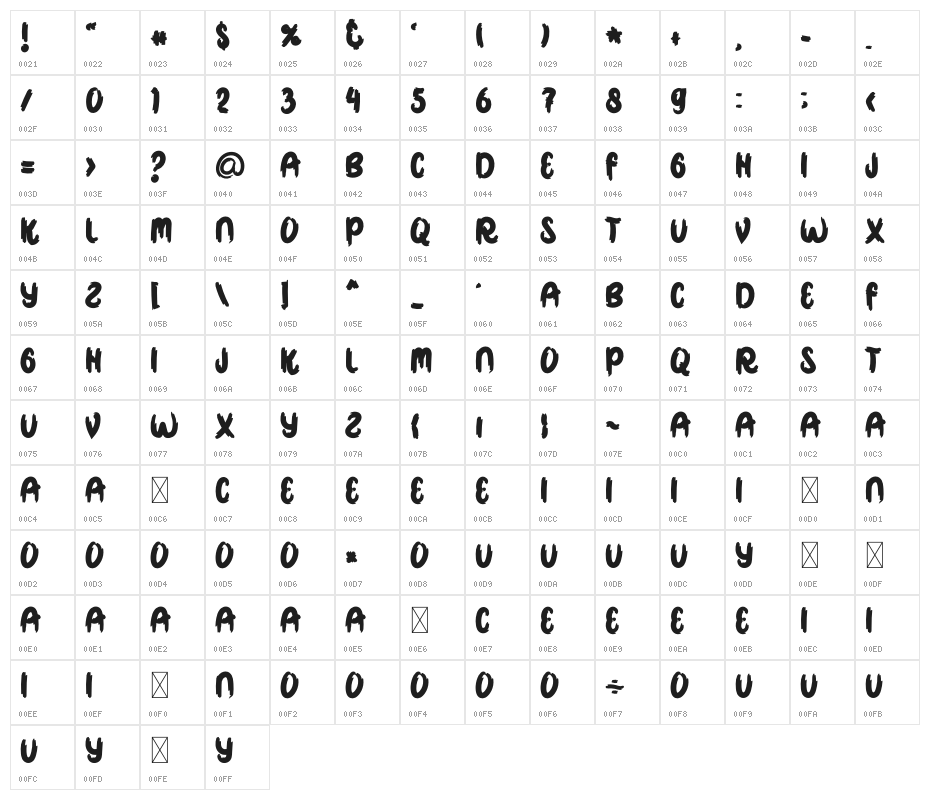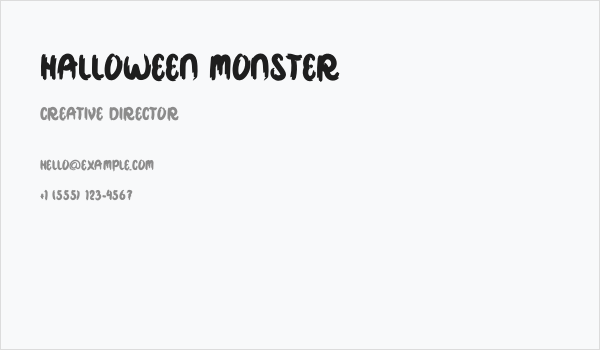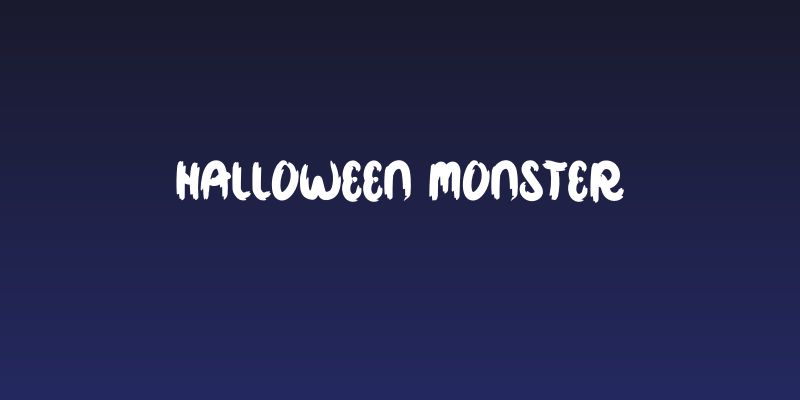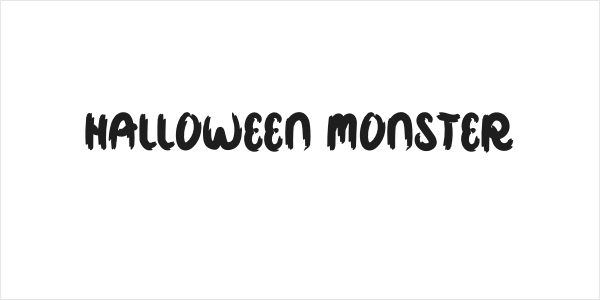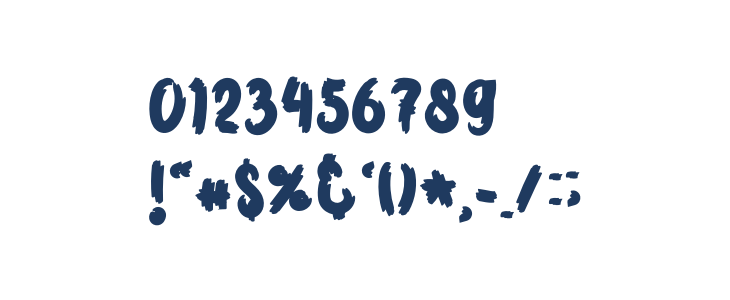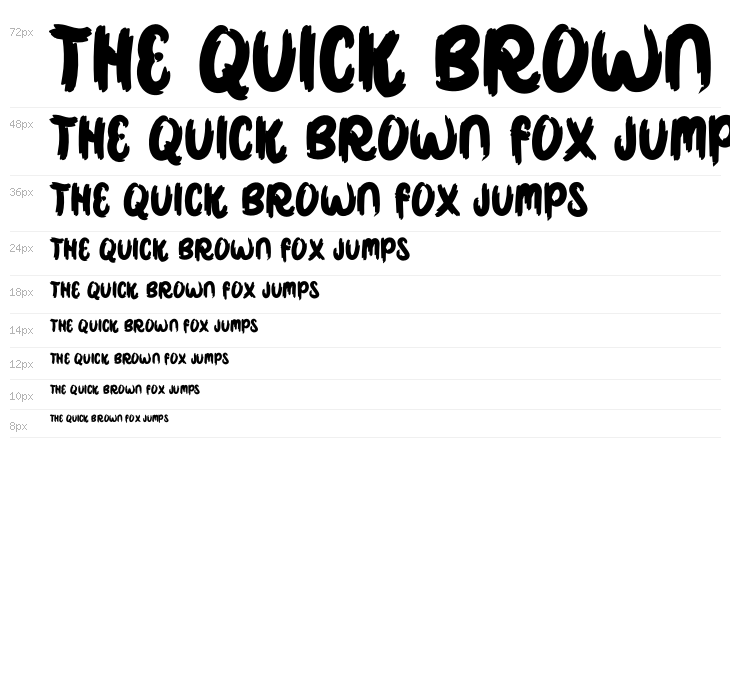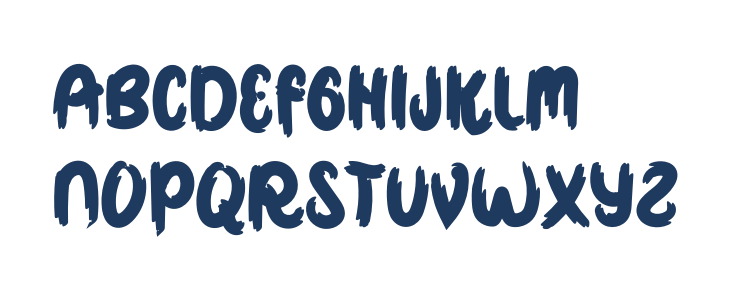
Halloween Monster Font
Halloween Monster Description
This font exudes a playful and spooky vibe, perfect for Halloween-themed projects. The characters are bold and have a brush-like texture, giving them a hand-painted appearance. The strokes are thick and uneven, adding to the eerie and whimsical feel. The uppercase and lowercase letters maintain a consistent style, with exaggerated curves and a slightly irregular baseline. Numbers and special characters follow the same design, ensuring a cohesive look across all text. This font is ideal for creating eye-catching headlines and titles that need a touch of fun and fright.
| Proposed Projects | Ideal for Halloween posters, party invitations, themed merchandise, and decorative signage. |